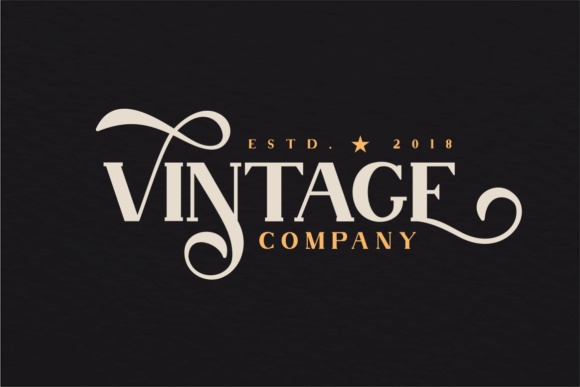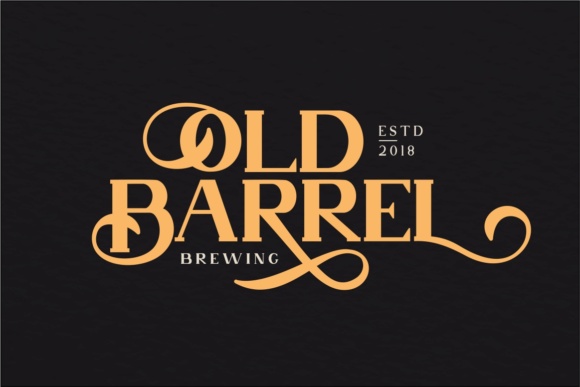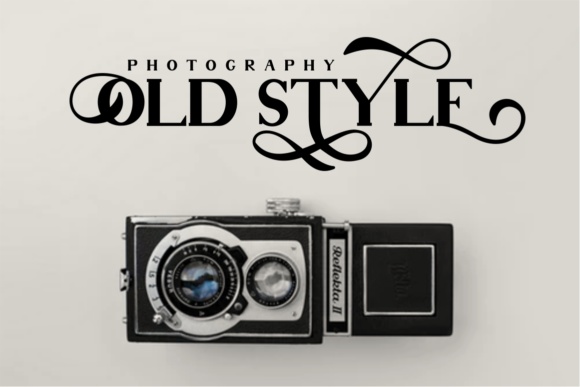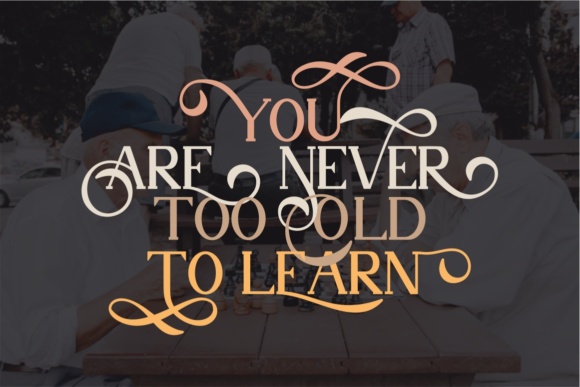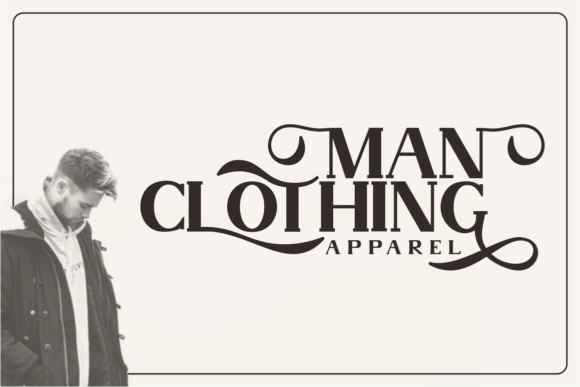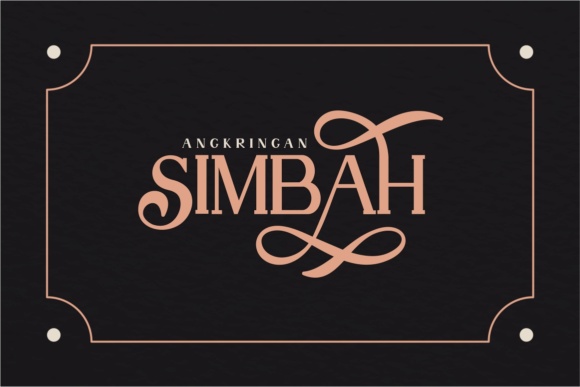
Introduction to Nuri Font Font
Fonts play a crucial role in design, and the Nuri Font font is a typeface that brings both character and versatility to any project. Whether you’re working on a branding project, a website, or a print design, the Nuri Font font offers a unique style that can elevate your work.
Nuri is a classic and elegant display typeface.
It comes in a regular and bold version and includes all caps characters with lots of alternatives, so you can combine as much as your creativity allows .
Key Features of Nuri Font Font
Why Choose Nuri Font Font?
The Nuri Font font is more than just a typeface – it’s a design tool that helps you communicate your message with style and clarity. Its unique character set and versatile design make it suitable for a wide range of applications, from elegant invitations to bold headlines.
With its carefully crafted letterforms and balanced proportions, the Nuri Font font ensures readability and visual appeal across all mediums.
What makes Nuri Font font special?
The Nuri Font font stands out with its unique design, exceptional readability, and versatility across various design applications.